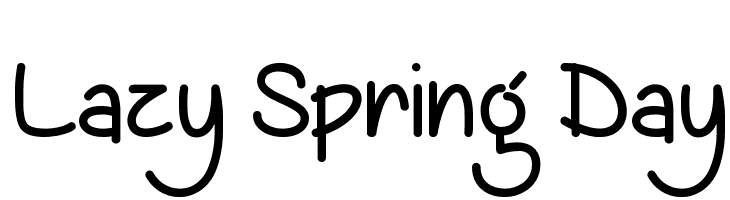
A distressed, grunge-style font with a bold and rugged appearance.
A bold, geometric font with a futuristic, industrial style.
A playful, handwritten font with bold strokes and a whimsical style.
A chaotic, distressed font with irregular, jagged strokes and a raw, emotional style.
A lively, handwritten-style font with a casual and dynamic appearance.
A bold, geometric font with a hollow, dotted interior and a 3D effect.
A bold, decorative font with a futuristic, industrial design featuring geometric patterns.
A playful, handwritten font with a casual and friendly style.
A bold, geometric font with a modern and futuristic style.
A bold, 3D block-style font with a strong geometric design.
A bold, 3D italic font with a geometric and dynamic style.
A bold, geometric, and condensed font with a modern, edgy style.
A bold, condensed, and italicized geometric font with a modern and edgy style.
A bold, geometric font with an expanded width and strong, blocky shapes.
A bold, italicized font with a modern, futuristic style and tight character spacing.
A bold, striped font with a modern, gradient effect.
A bold, italicized font with a gradient effect created by horizontal lines, offering a futuristic and dynamic style.
A bold, angular font with a futuristic and dynamic style.
A bold, geometric font with a futuristic and industrial aesthetic.
A bold, geometric italic font with a strong, modern presence.
A bold, slanted, and dynamic font with a modern, energetic style.
A bold, geometric font with a rough, textured appearance.
A bold, geometric font with a modern, robotic aesthetic.
A bold, elegant script font with a modern touch and flowing characters.
A bold, flowing script font with a playful and elegant style.
A bold, flowing script font with modern elegance and playful sophistication.
A playful and elegant script font with modern, flowing curves.
A bold, playful script font with a vintage flair and strong decorative elements.
A bold, italic script font with a playful yet elegant style.
A modern, cursive italic font with smooth curves and elegant connections.
A bold, cursive font with elegant, flowing lines.